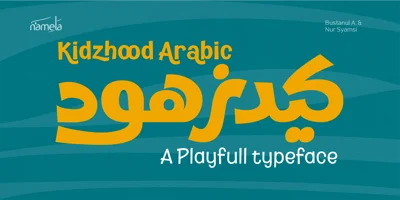
Kidzhood Arabic Font
Kidzhood Arabic Font is perfect for bilingual children's book publishing, Arabic-speaking daycare center branding, Middle Eastern family restaurant kids' menus, multicultural educational toy packaging, Arabic language learning apps, international school communications, cultural diversity children's programs, and inclusive family entertainment materials.
Kidzhood Arabic Font is exciting because it bridges cultural understanding with childhood wonder through its playfully crafted Arabic letterforms that maintain the beauty of traditional calligraphy while embracing the joyful spirit of children's imagination. The typeface embodies the importance of preserving linguistic heritage while creating accessible, fun learning experiences that help young minds connect with their cultural roots and global community.
Kidzhood Arabic Font family includes Regular, Bold, Light, and Playful variants, with comprehensive Arabic script support and child-friendly Latin character compatibility, offering designers inclusive typography tools for creating communications that celebrate cultural diversity while prioritizing educational accessibility and childhood development.
Whether you're developing multicultural educational content, designing Arabic-speaking community family services, or creating inclusive children's entertainment materials, Kidzhood Arabic Font provides unmatched cultural sensitivity and child-friendly appeal. This thoughtful typeface perfectly balances authentic Arabic typography traditions with contemporary childhood development principles, ensuring your communications resonate with diverse families who value both cultural preservation and modern educational excellence. The font's approachable character design and bilingual functionality make it particularly effective for organizations committed to inclusive education, cultural understanding, and the kind of respectful representation that helps children from all backgrounds feel valued and understood. Educational professionals consistently choose Kidzhood Arabic Font when projects require typography that communicates cultural respect, childhood joy, and the kind of inclusive design that builds bridges between communities while supporting young learners, making it indispensable for multicultural education branding, Arabic language learning materials, and any application where culturally sensitive typography can celebrate the beautiful diversity of childhood experiences while fostering understanding, respect, and the shared values that unite families across all cultures and languages.